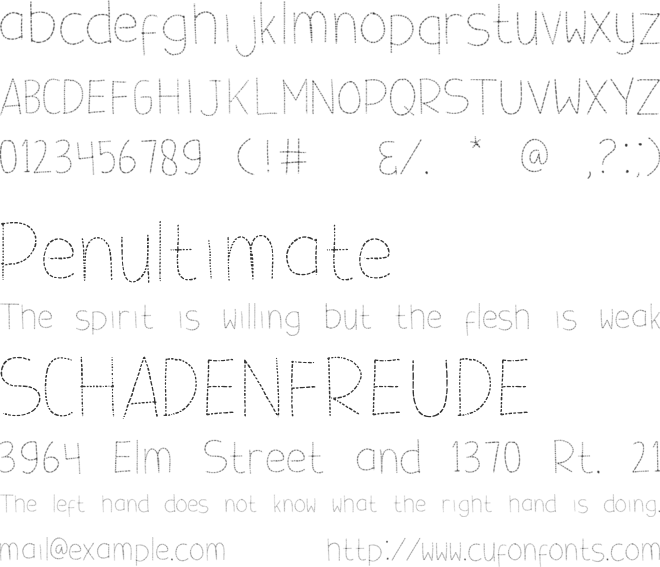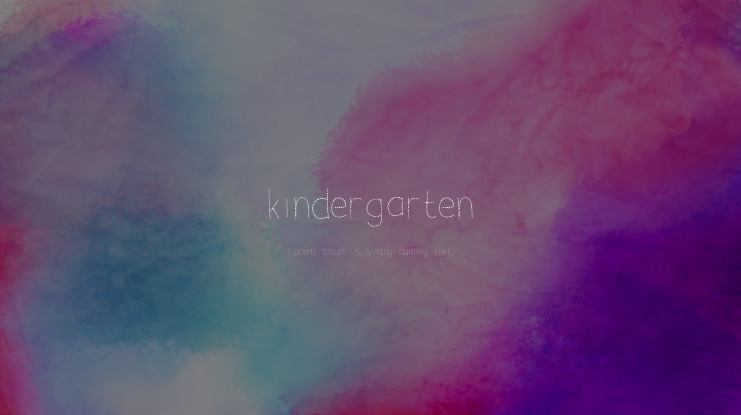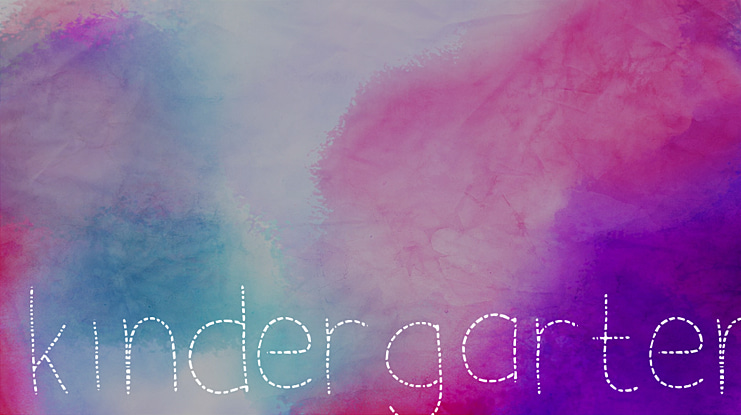
kindergarten Font
Kindergarten is a cute and simple display font. It is the best choice for creating eye catching logos, branding and quotes. Add it confidently to your designs and you will love the outcome.